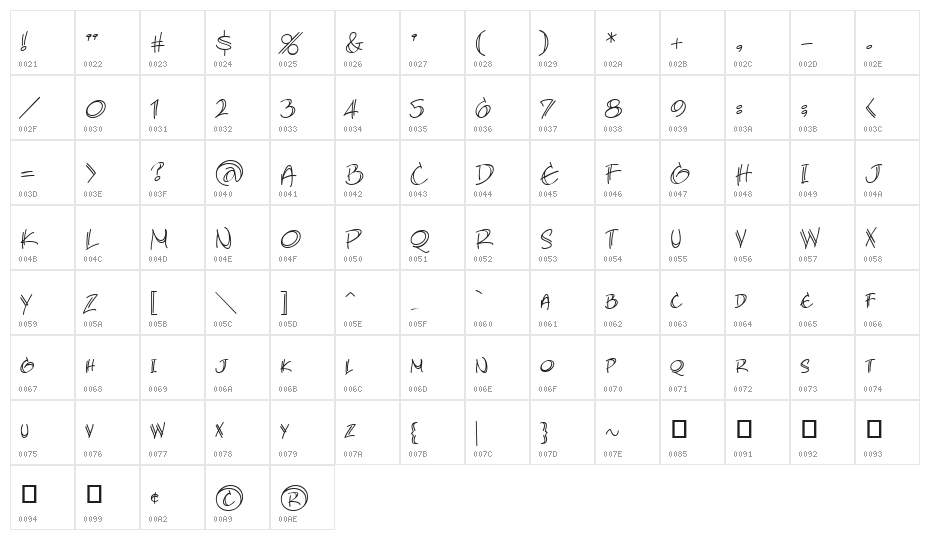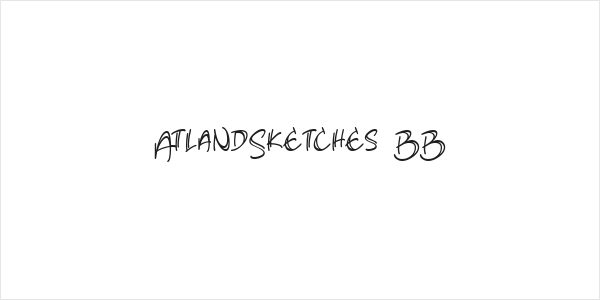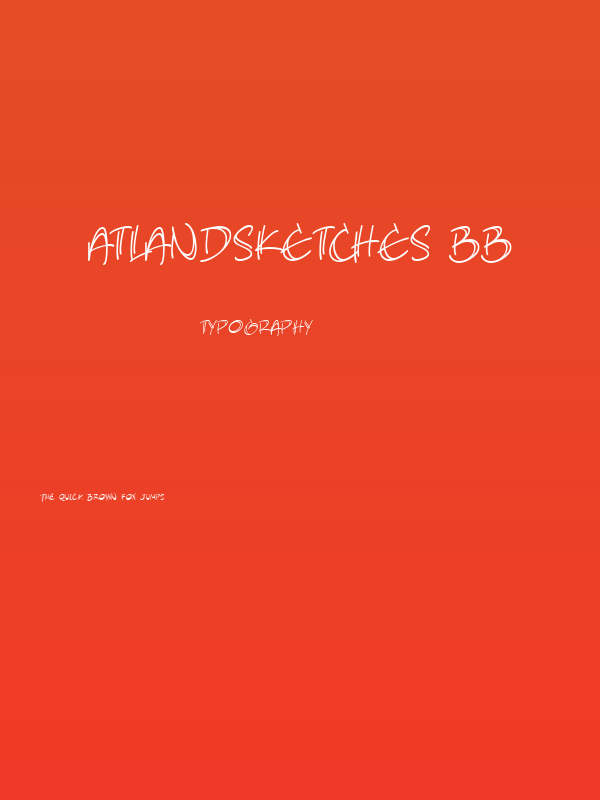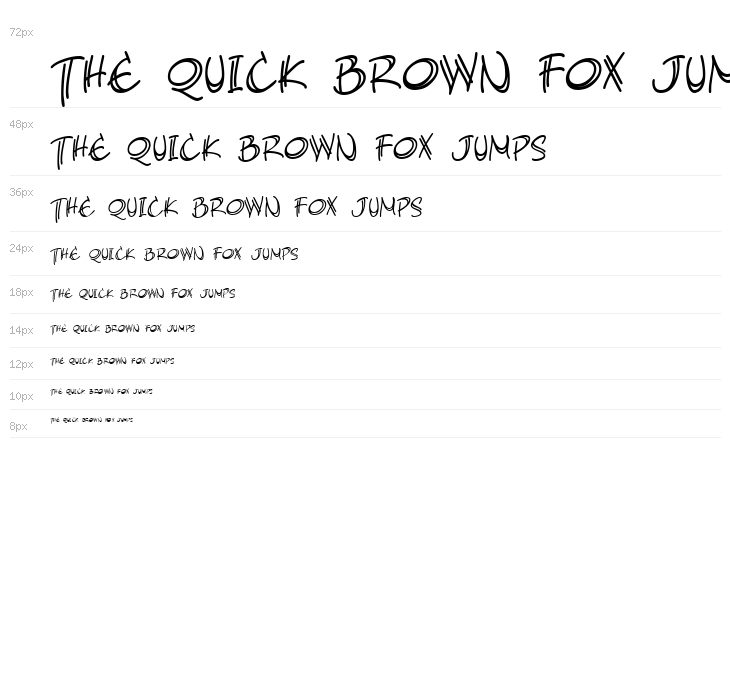
AtlandSketches BB Font
AtlandSketches BB Description
This font features a playful and dynamic handwritten style, characterized by its fluid and slightly irregular strokes. The letters have a casual, sketch-like appearance, with varying line thicknesses that add a sense of movement and energy. The uppercase and lowercase letters maintain a consistent style, with rounded edges and a slight slant that enhances the informal feel. The numerals and special characters are designed to match the overall aesthetic, providing a cohesive look across all glyphs. This font's unique personality makes it stand out, offering a creative and artistic touch to any design project.
| Proposed Projects | Ideal for creative projects such as greeting cards, invitations, posters, and branding materials that require a personal and artistic touch. |